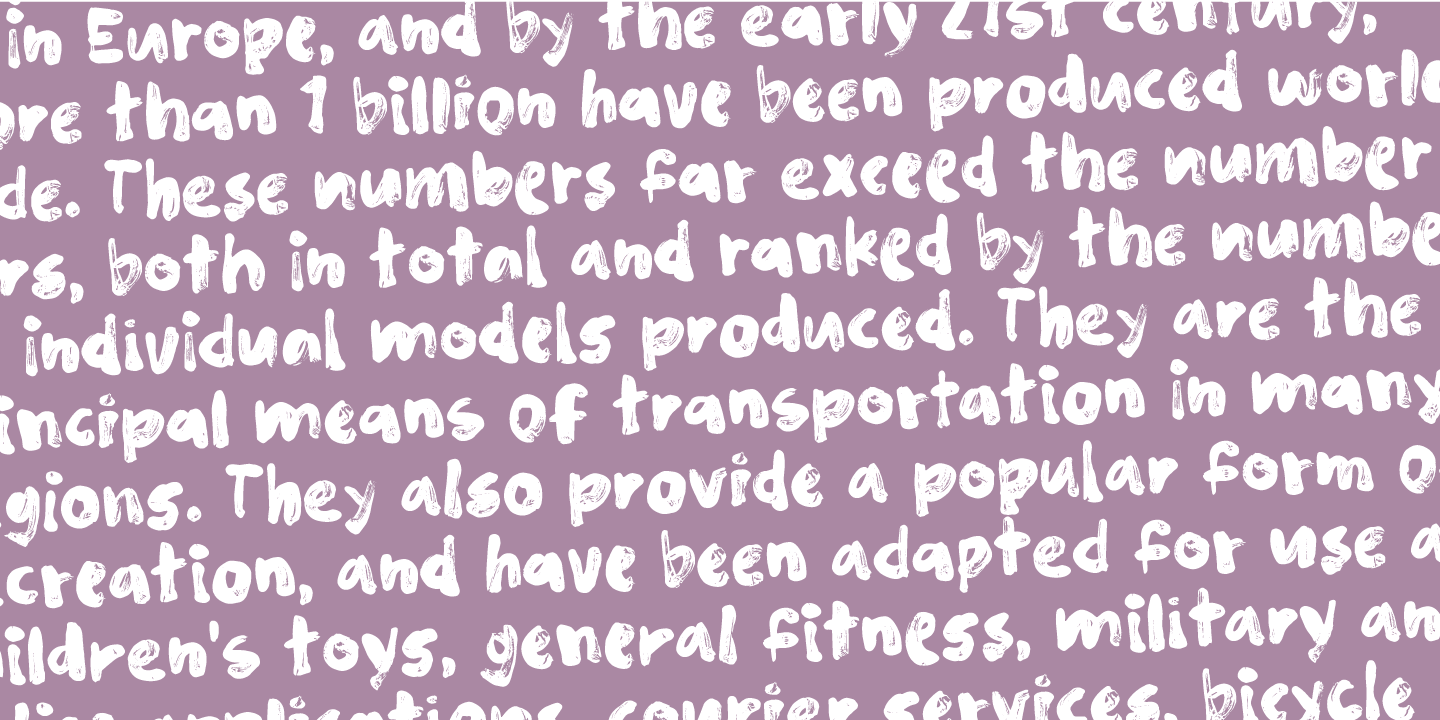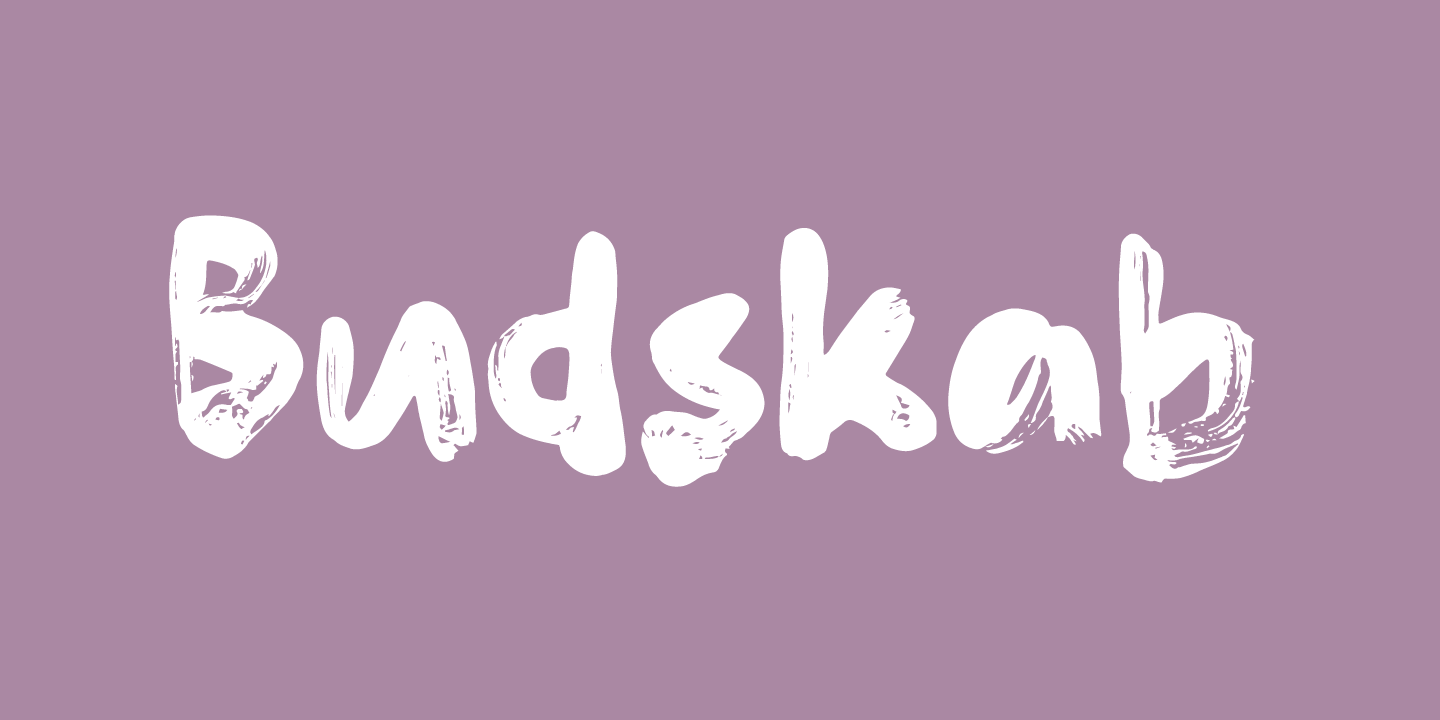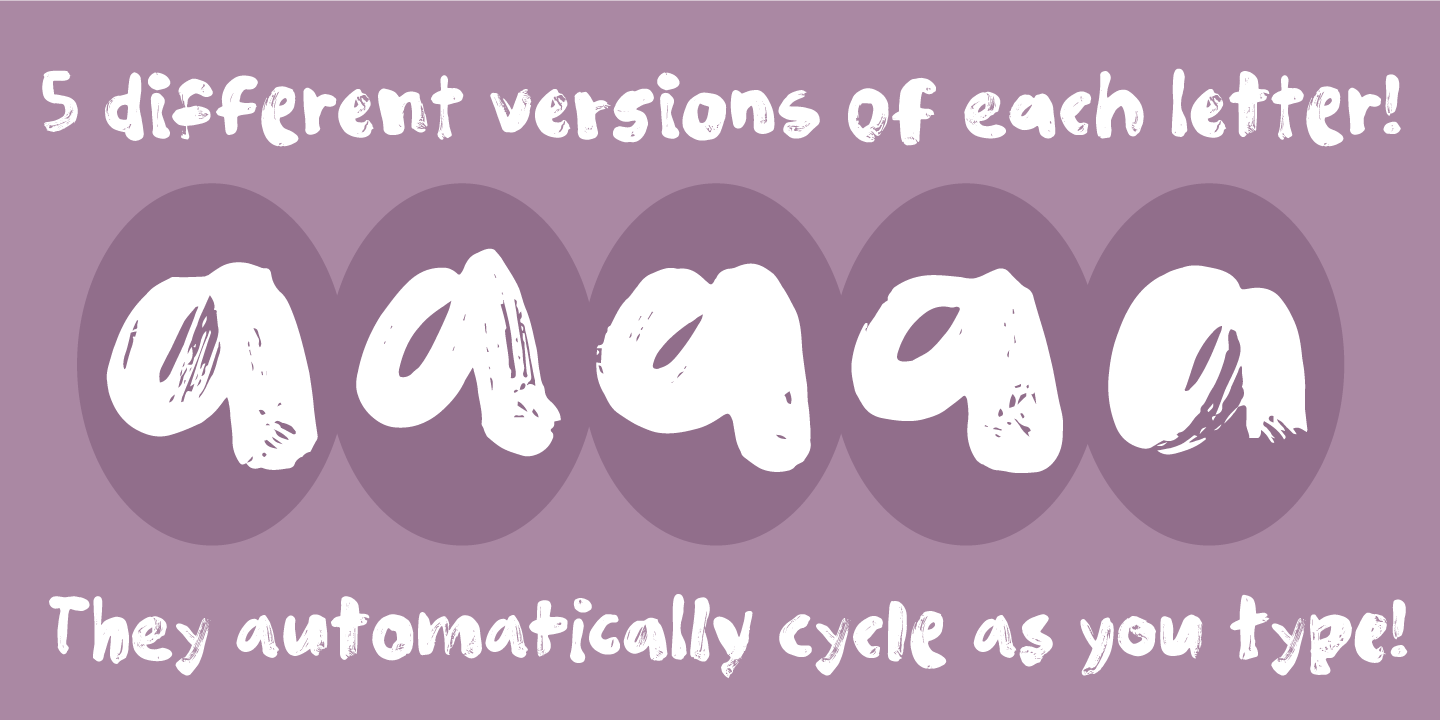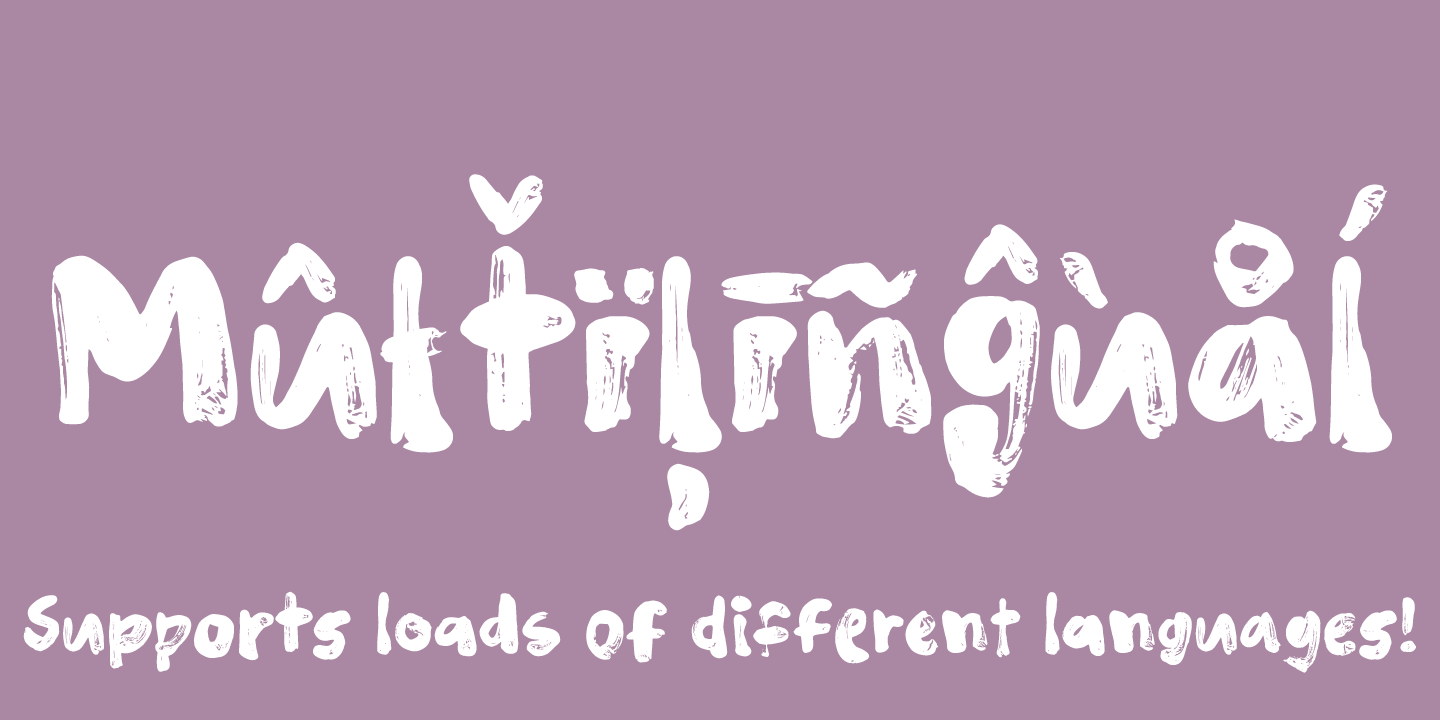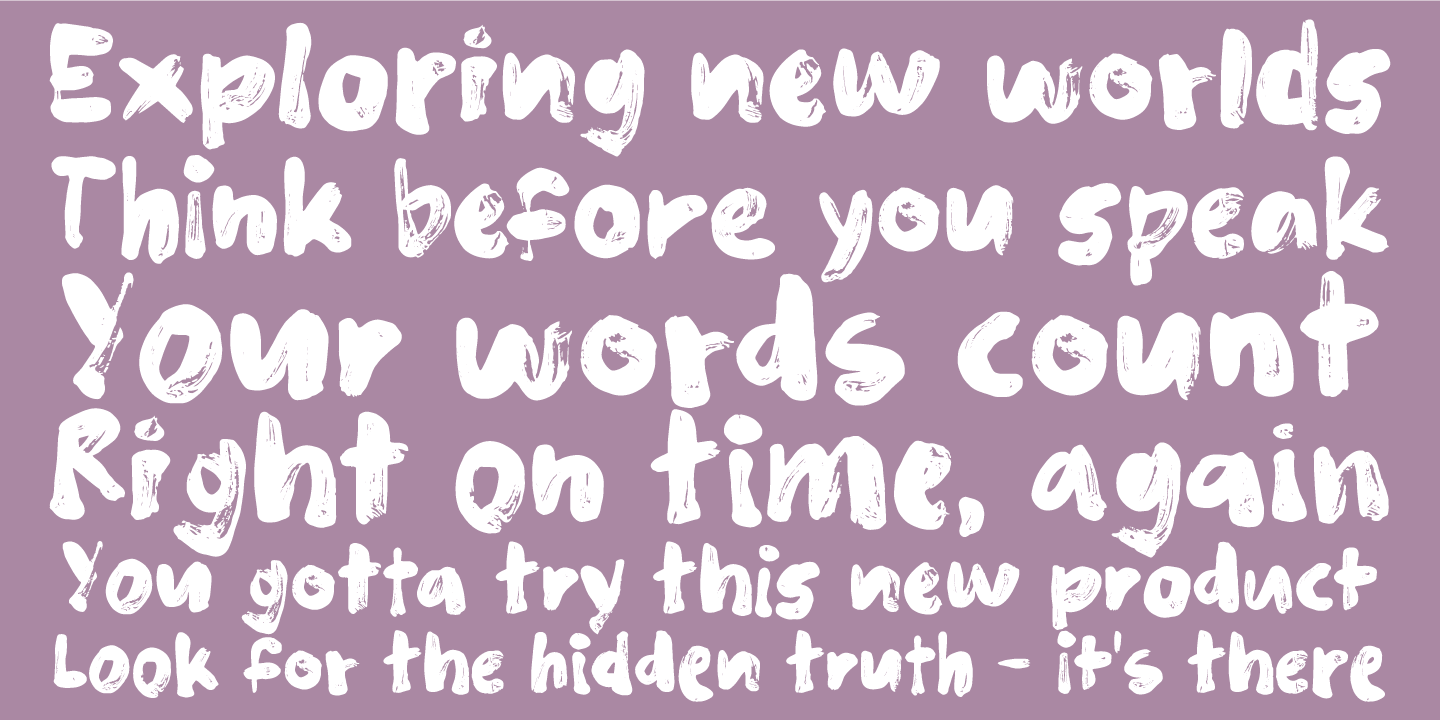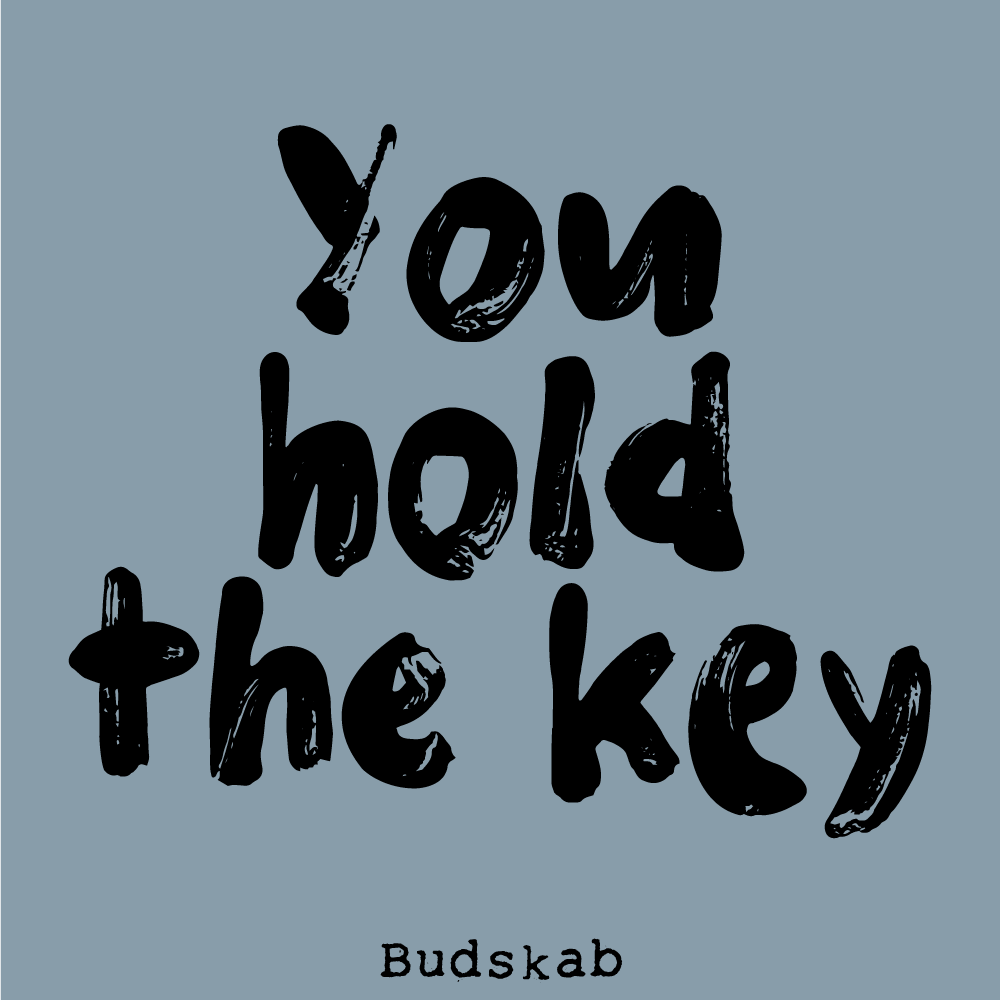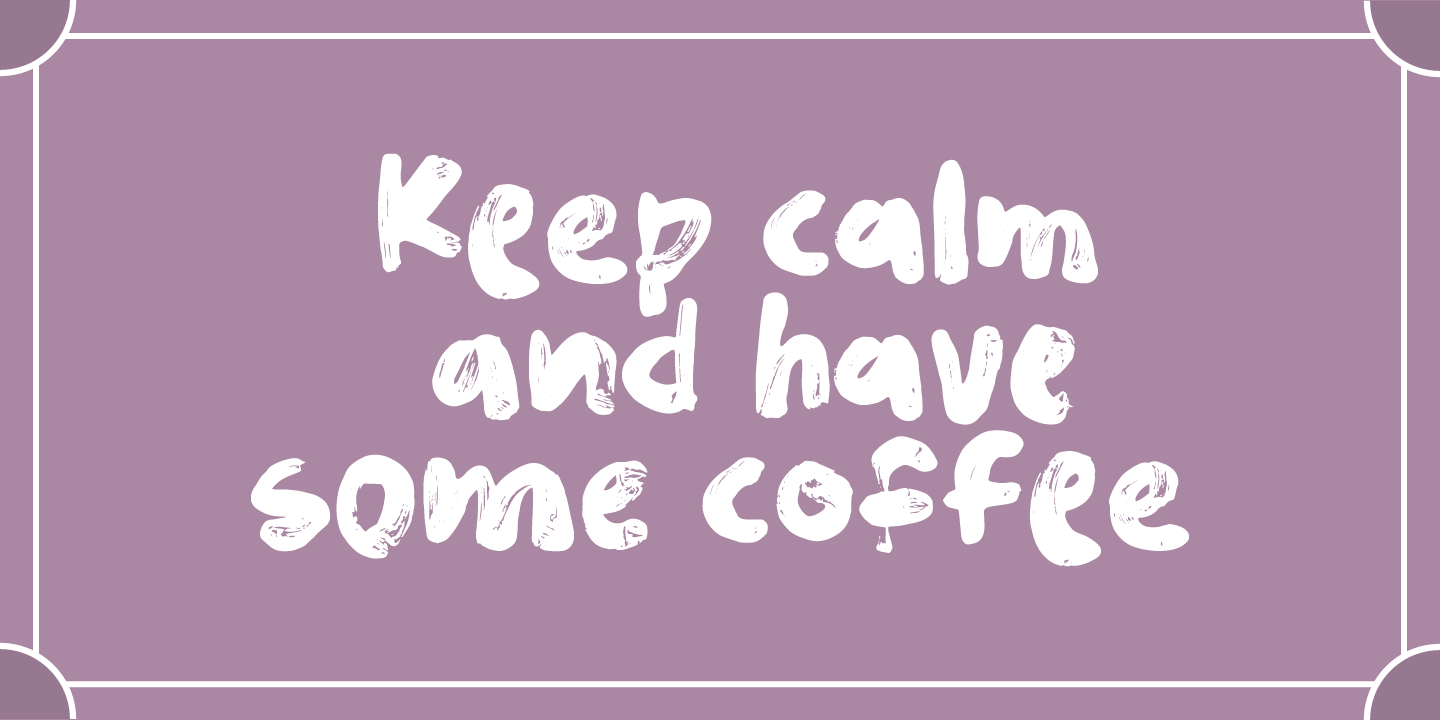
Budskab
This is the kind of font which is up to trouble. Not trouble in a bad way, but trouble like when you are in no way prepared what is going to happen.
The font is handmade and playful - and to help that playfullness come to live, the 5 different versions of each letter helps! Watch your words change while you write with Budskab!
And, by the way...“budskab” is message in danish...just thought you should know!